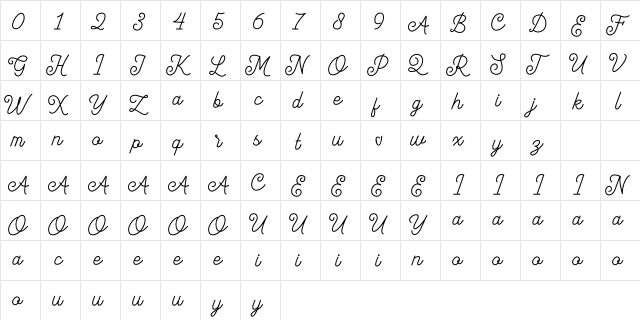
Majorette Regular
| Designer | FiqiArt |
Design Context for Majorette Typeface
Majorette takes a measured approach to typography — its balanced proportions and neutral character make it a reliable workhorse for both digital and print work.